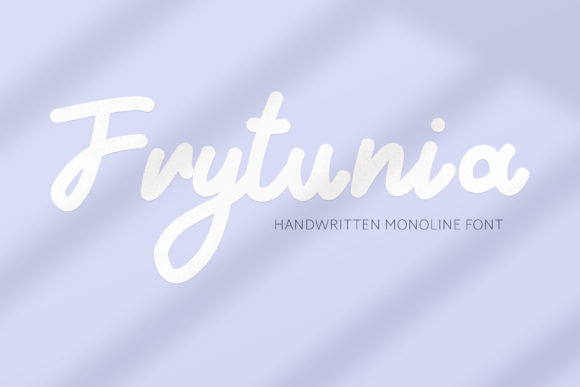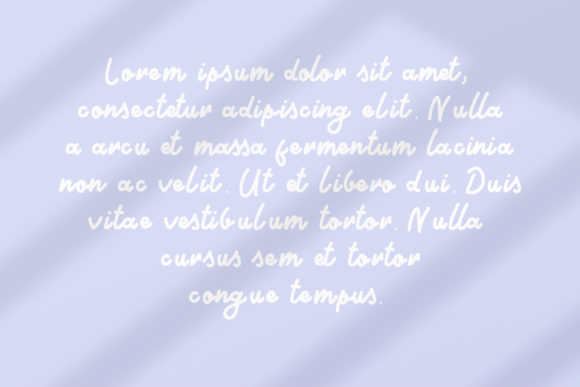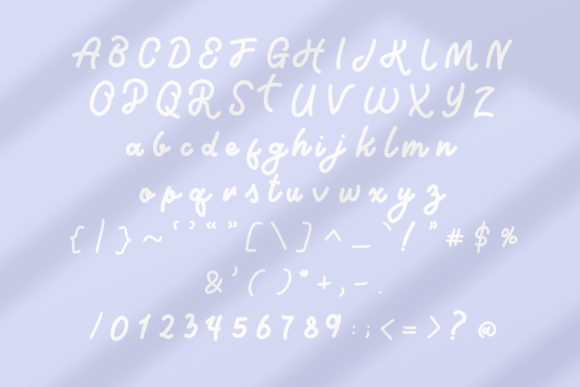
Frytunia Font
About Frytunia Font
Frytunia is a sweet and magical handwritten font, created with the help of a brush pen. Fall in love with its incredibly versatile style and use it to create gorgeous wedding invitations, beautiful stationary art, eye-catching social media posts, and much more!